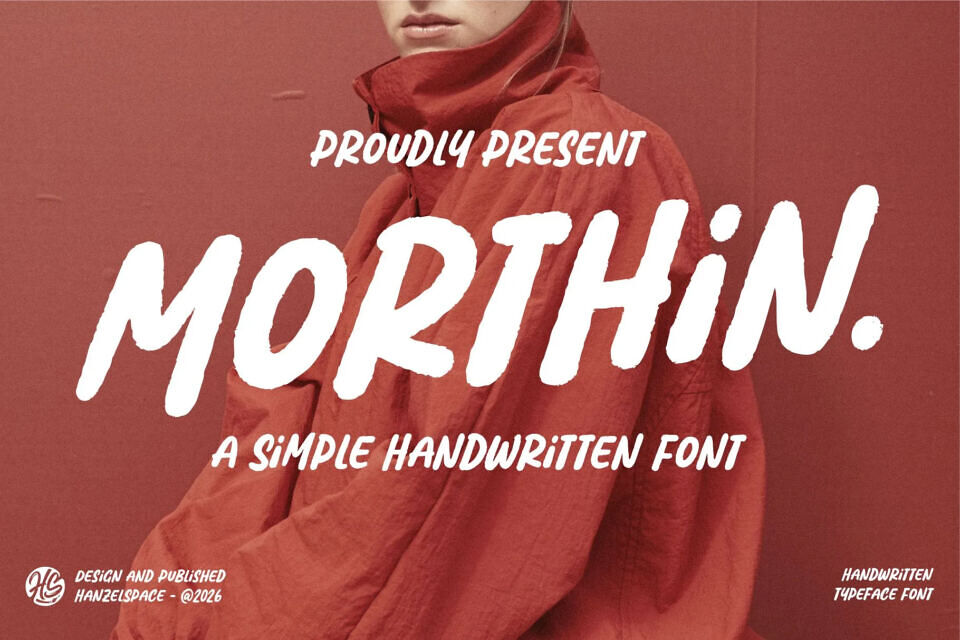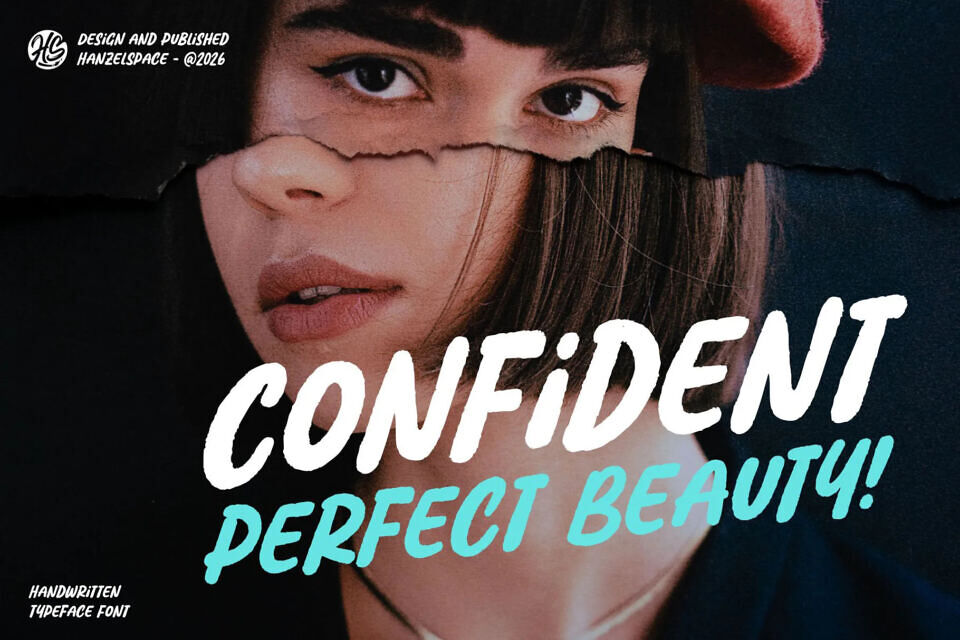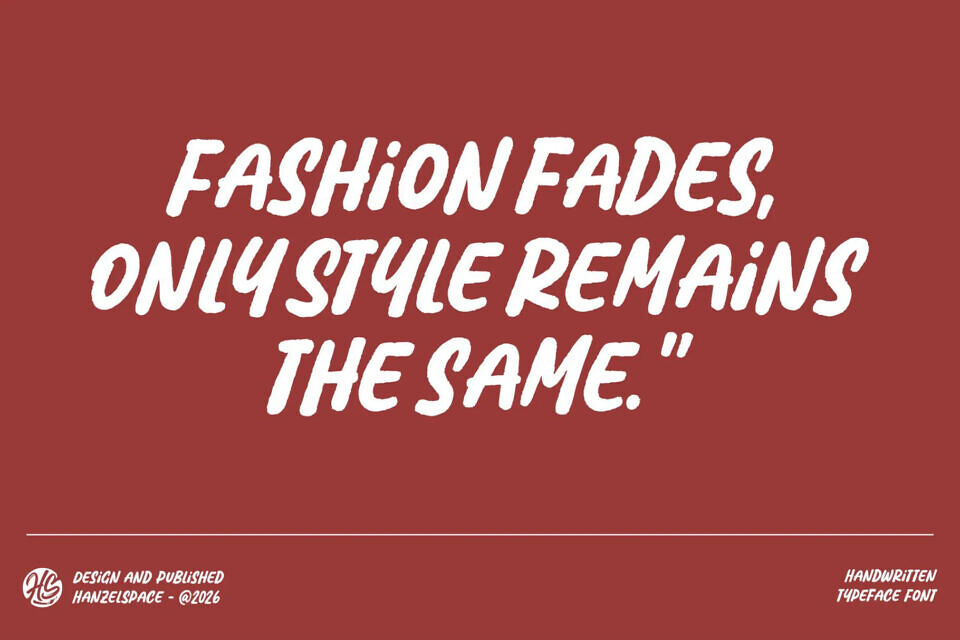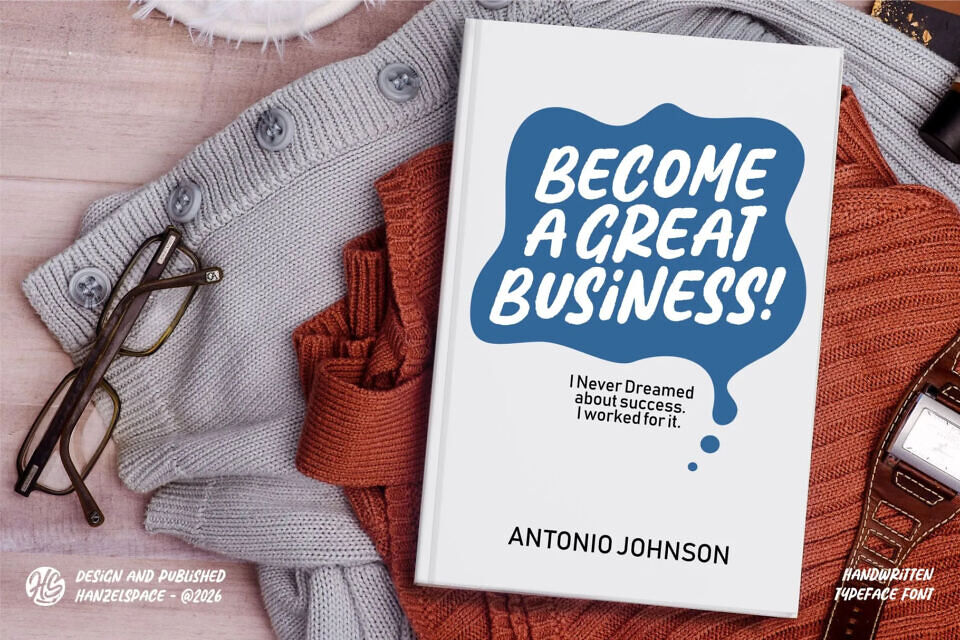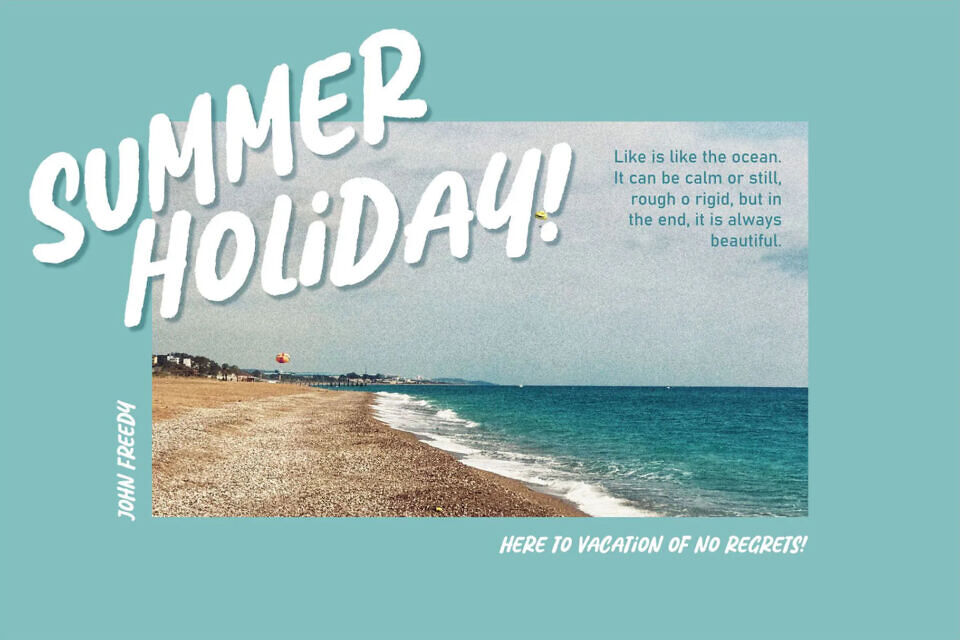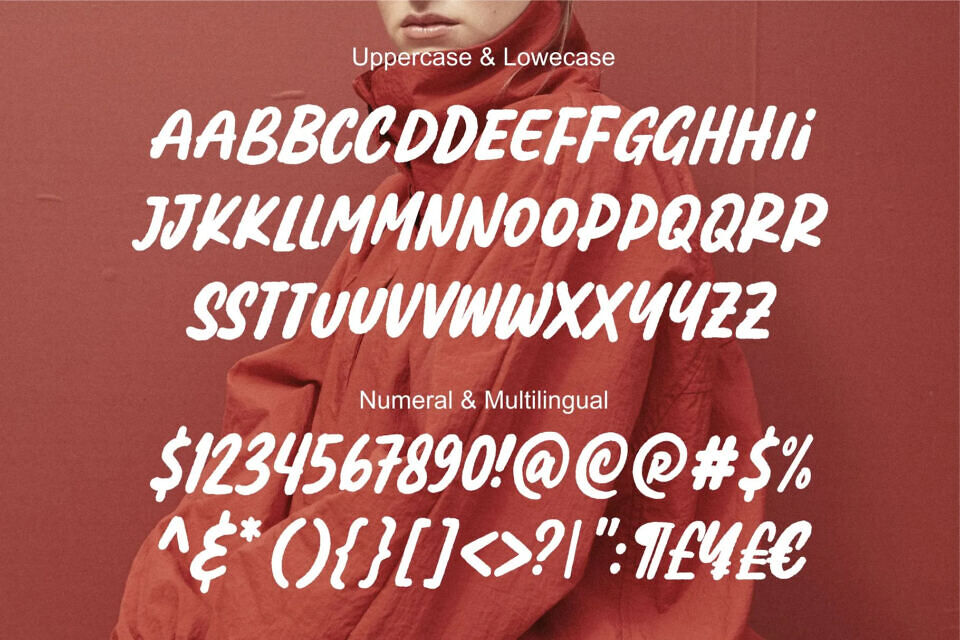
Introducing “Morthin”, a unique organic font with a handwritten feel. Its bold, all-caps design gives it an authentic look. Versatile and stylish, it’s perfect for logos, invitations, magazines, posteres, and more, making it ideal for various formal and creative applications, including advertising, packaging, and stationery.